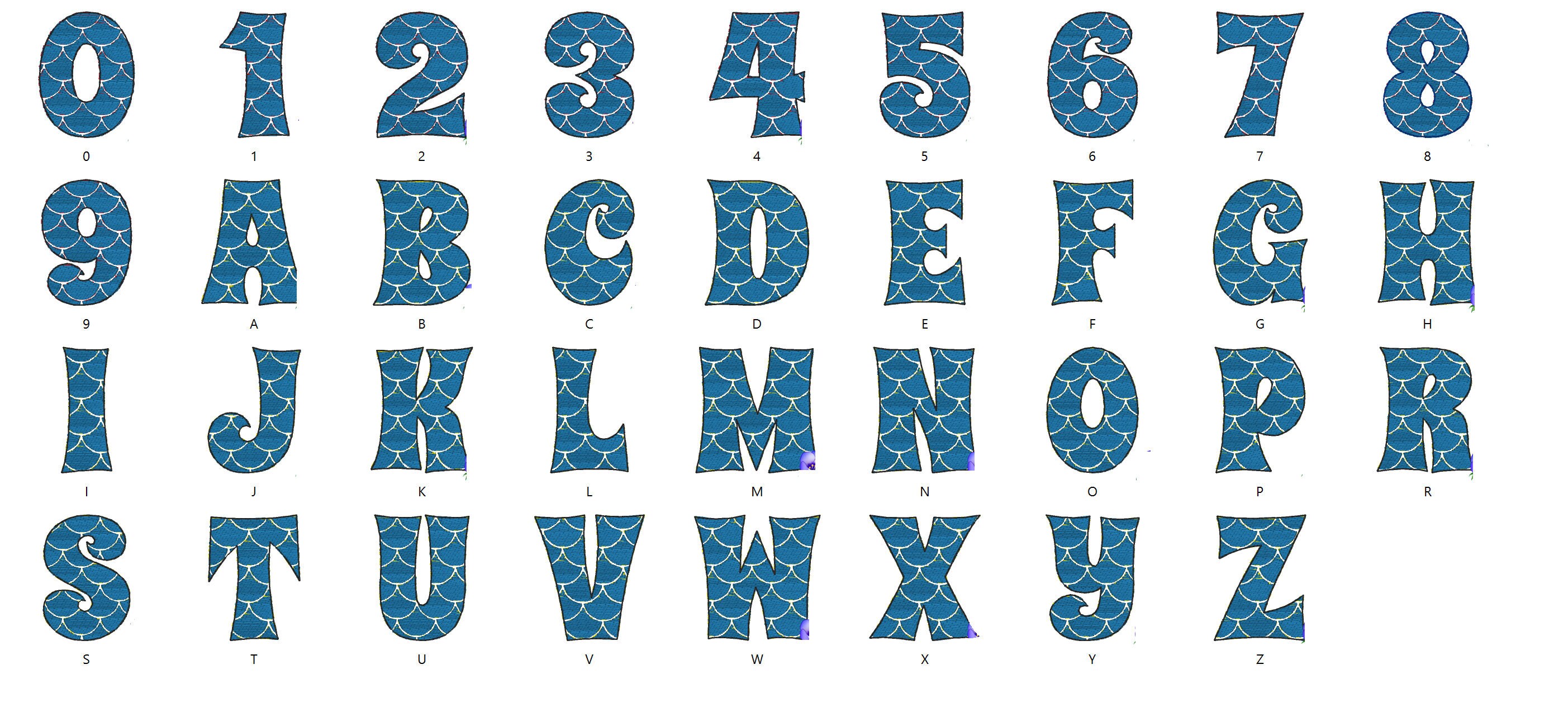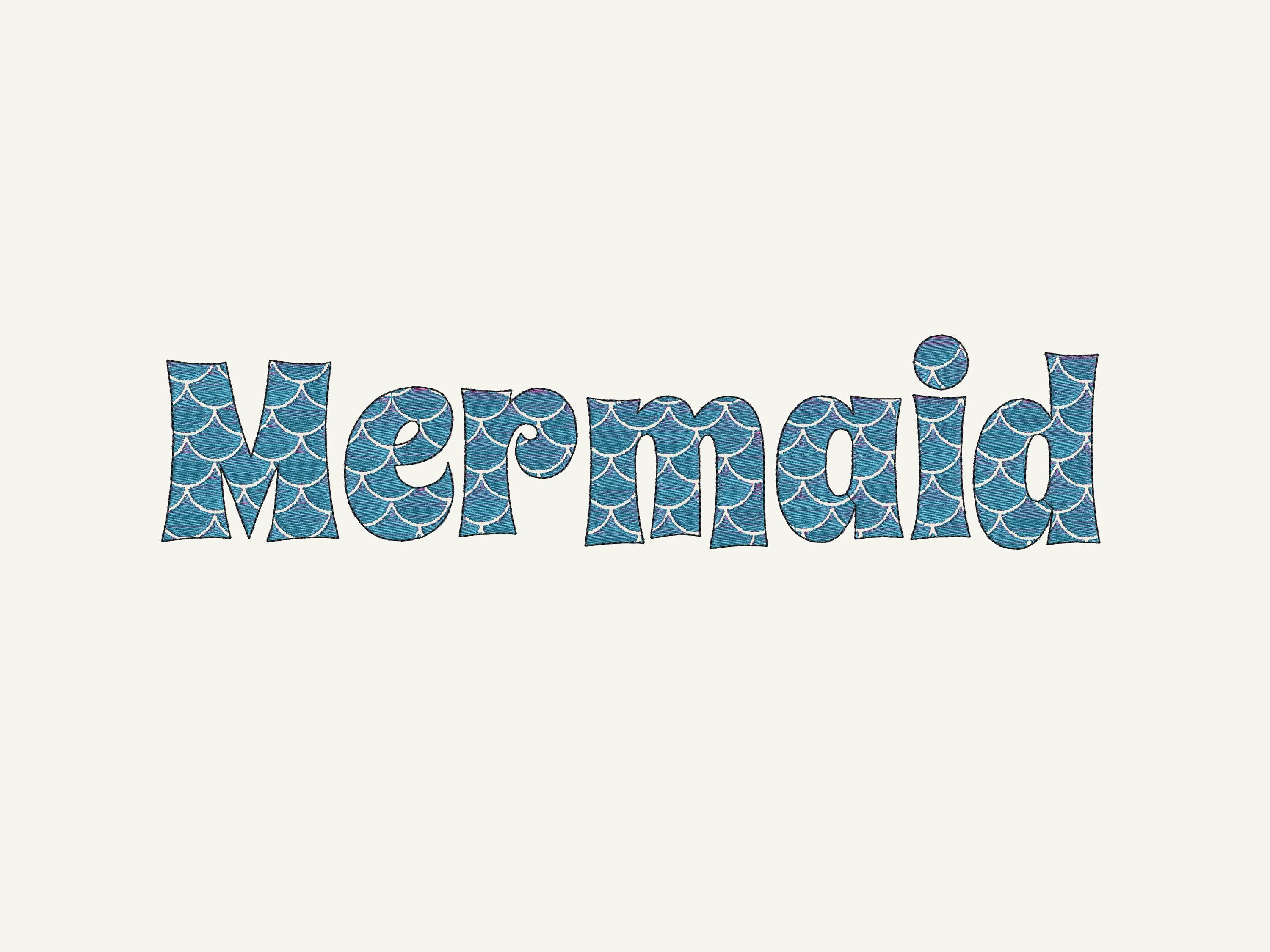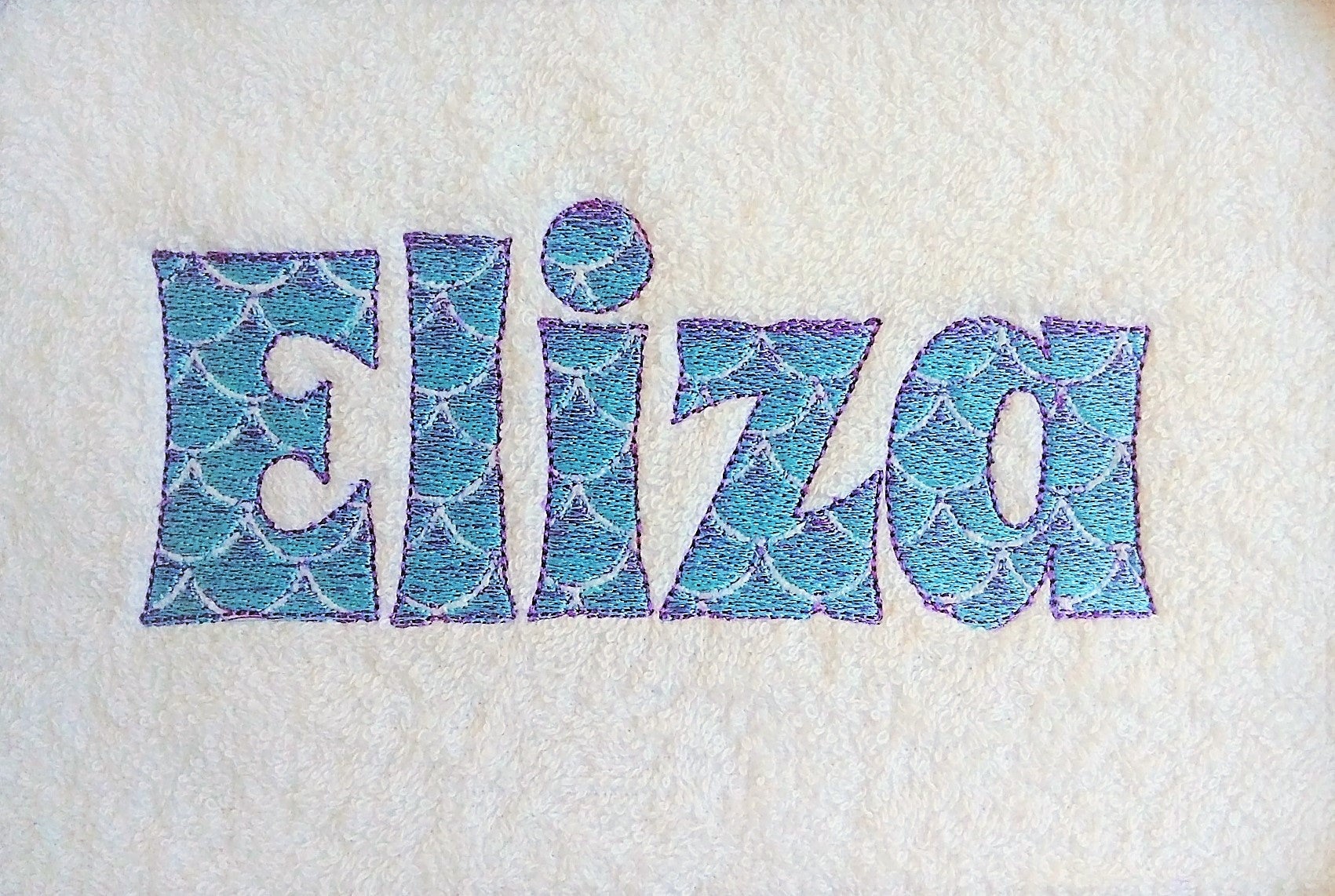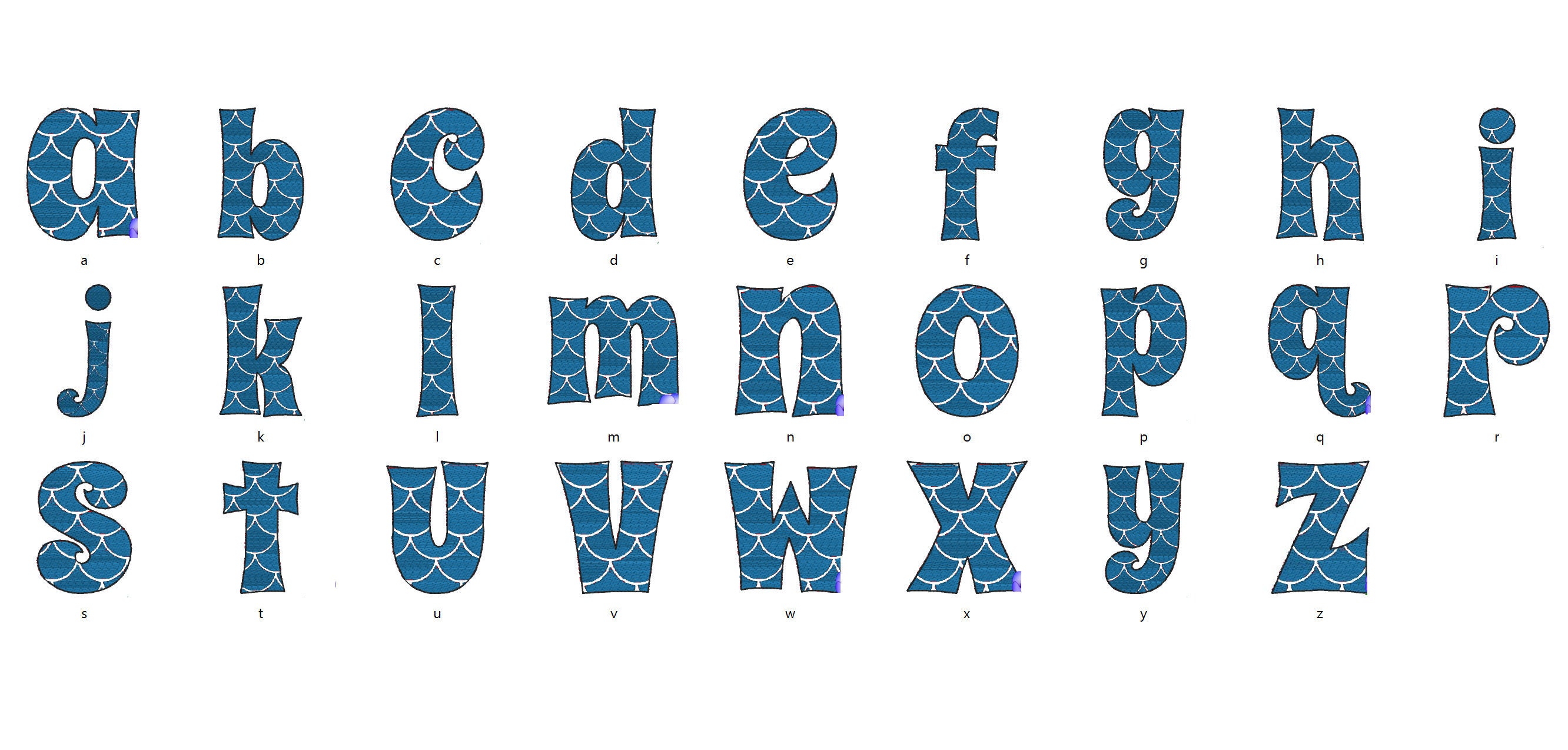
Iridescent 2 Color Mermaid Monogram FONT alphabet machine embroidery designs in assorted sizes, awesome mermaid tail embroidery design, No special thread needed
The letters are stitched using regular solid color embroidery thread, each letter has two colors to make a nice iridescent effect!
The pattern creates this amazing effect all by itself. Iridescent comes thanks to the design, it has 2 colors. While stitching on one side of the letter with one color and then on other side stitches with the second color.